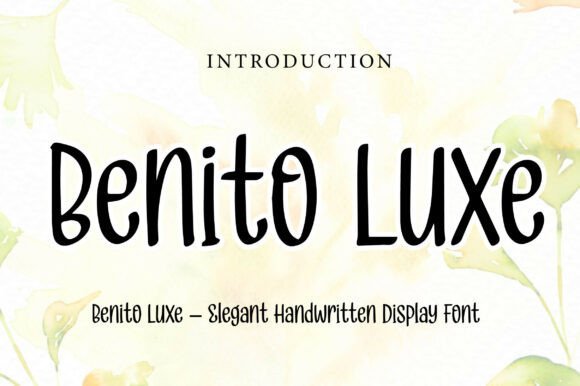
Introduction to Benito Luxe Font
Introducing Benito Luxe, your new go-to for elegant handwritten display typography.
This chic, modern font boasts a blend of grace, simplicity, and character, guaranteed to elevate your designs Benito Luxe stands out for its versatility, complementing various formats from branding and logos to packaging, social media posts, website banners, and editorial designs.